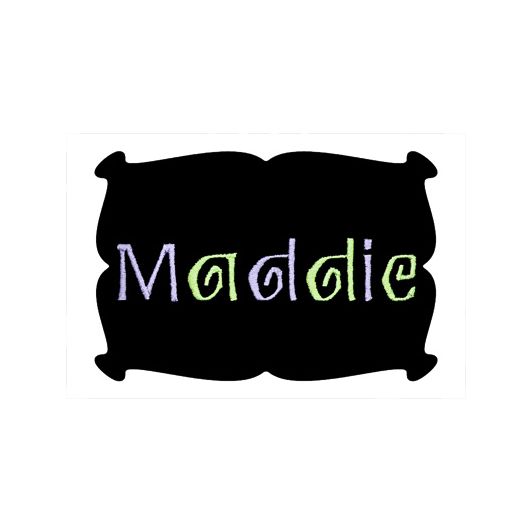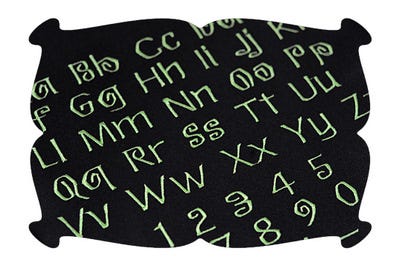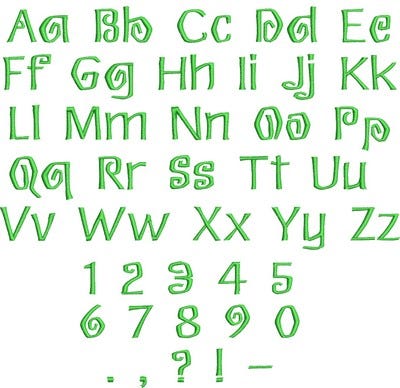
Curly Q Satin Stitch Embroidery Font
Curly Q Embroidery Font
I've had tons of requests for this font.
It's the perfect font for Halloween and Christmas, but it's also a cute look any time of the year!
The Curly Q Embroidery Font comes with capital letters A thru Z, lower case letters a thru z, numbers 0-9 and puncuation (period, hyphen, comma, exclamation point, question mark).